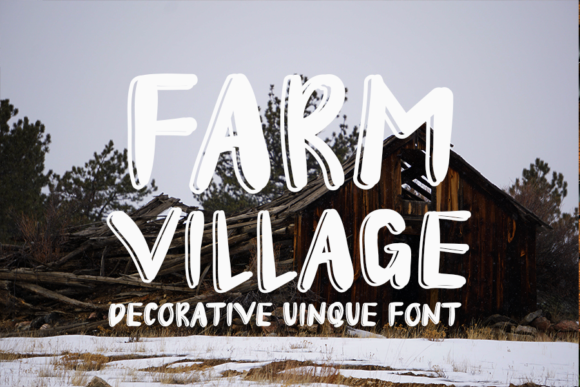
Step into a world of rustic simplicity and modern elegance with Farm Village Font, the captivating display font that exudes charm and versatility. Its carefully crafted characters, inspired by the beauty of rural life, bring a touch of down-to-earth authenticity to your designs. Whether you're crafting logos, branding, posters, or any other creative project, Farm Village Font is your trusted companion.
With its innate readability, Farm Village Font ensures your message shines through, even amidst intricate backgrounds or as a standalone headline. Its effortless flow and balanced proportions make it an ideal choice for both print and digital designs, allowing you to captivate audiences across various platforms.
Embrace the charm of Farm Village Font and elevate your designs to new heights. Its timeless appeal and wide range of applications make it a must-have for any designer seeking to create captivating and memorable visual experiences. Choose Farm Village Font today and unlock the endless possibilities of creative expression!